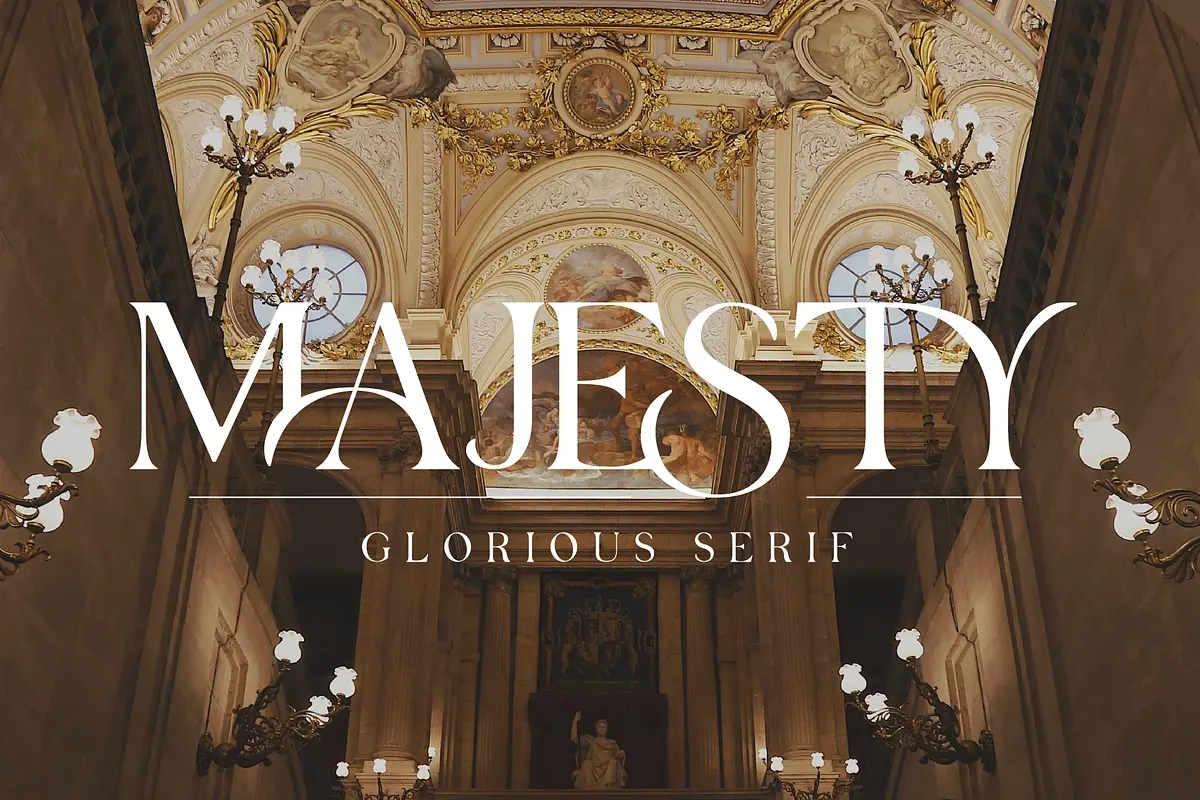
MAJESTY - GLORIOUS SERIF Font Free Download is a bold, sophisticated typeface with high contrast strokes and sharp serifs, designed to bring a sense of luxury and grandeur to your typography. Perfect for high-end branding, editorial designs, book covers, event invitations, and any project that requires a majestic, polished aesthetic.
MAJESTY - GLORIOUS SERIF Font Free Download offers a regal and refined look, ideal for premium logos, elegant invitations, or classic editorial layouts. Whether you're designing for a luxury brand or creating an impactful headline, this font adds elegance and strength to your project. Download it today and let MAJESTY bring a glorious touch to your next creative venture!